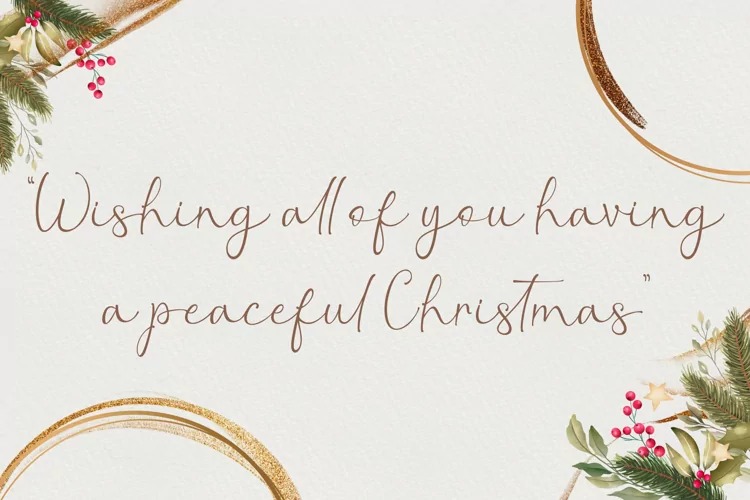
Christmas Leaf Script Font
This font is another lovely modern script, signature and Combination font, which is combining the style of classic calligraphy with an modern style. Add this font to your most creative ideas, and notice how it makes them stand out! Christmas Leaf is PUA encoded which means you can access all of the glyphs and swashes with ease!